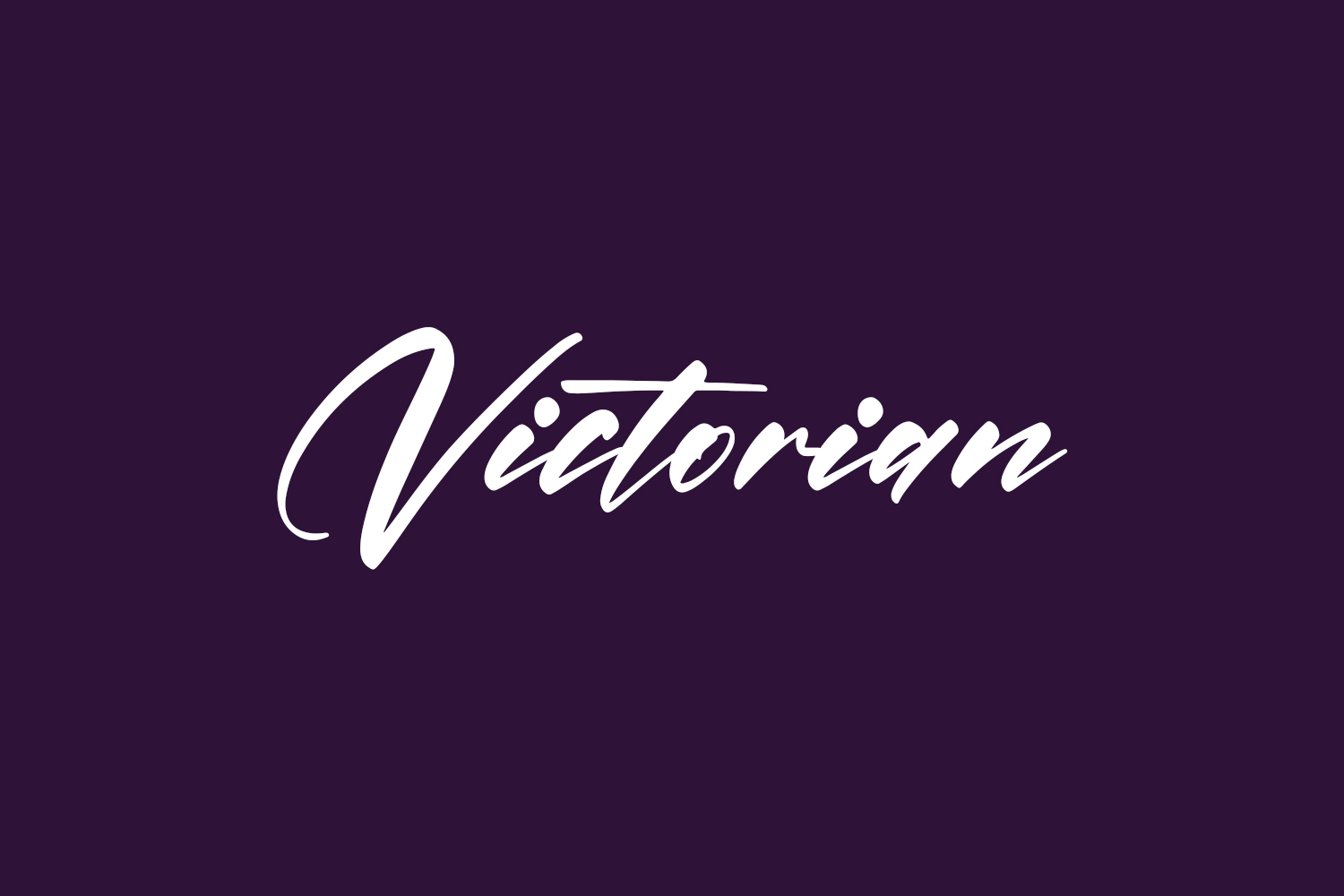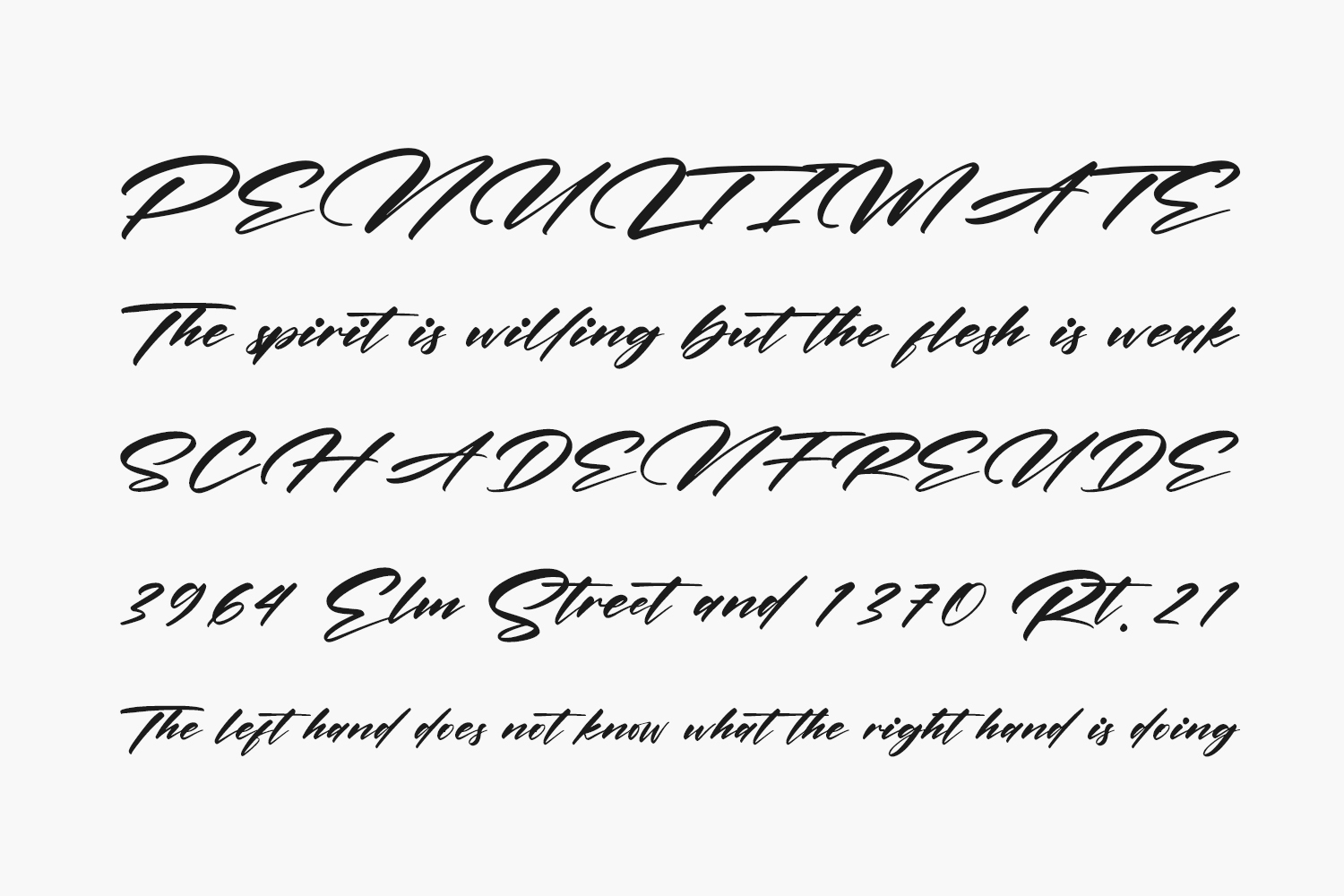
Victorian Free Font is a thin lettered and graceful script font. It will add a luxury spark to any design project that you wish to create. Victorian Free Font is free for personal use only. Please purchase the full version for commercial use.
Designed by Letterena Studios